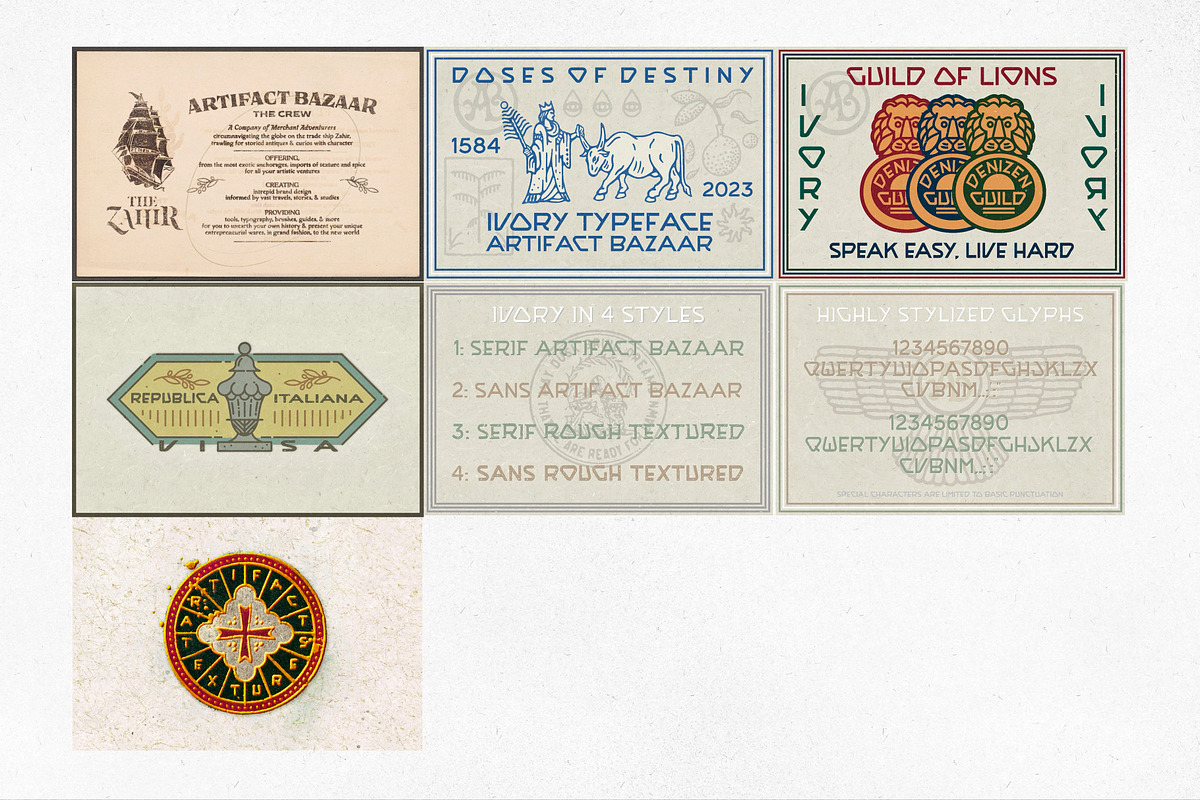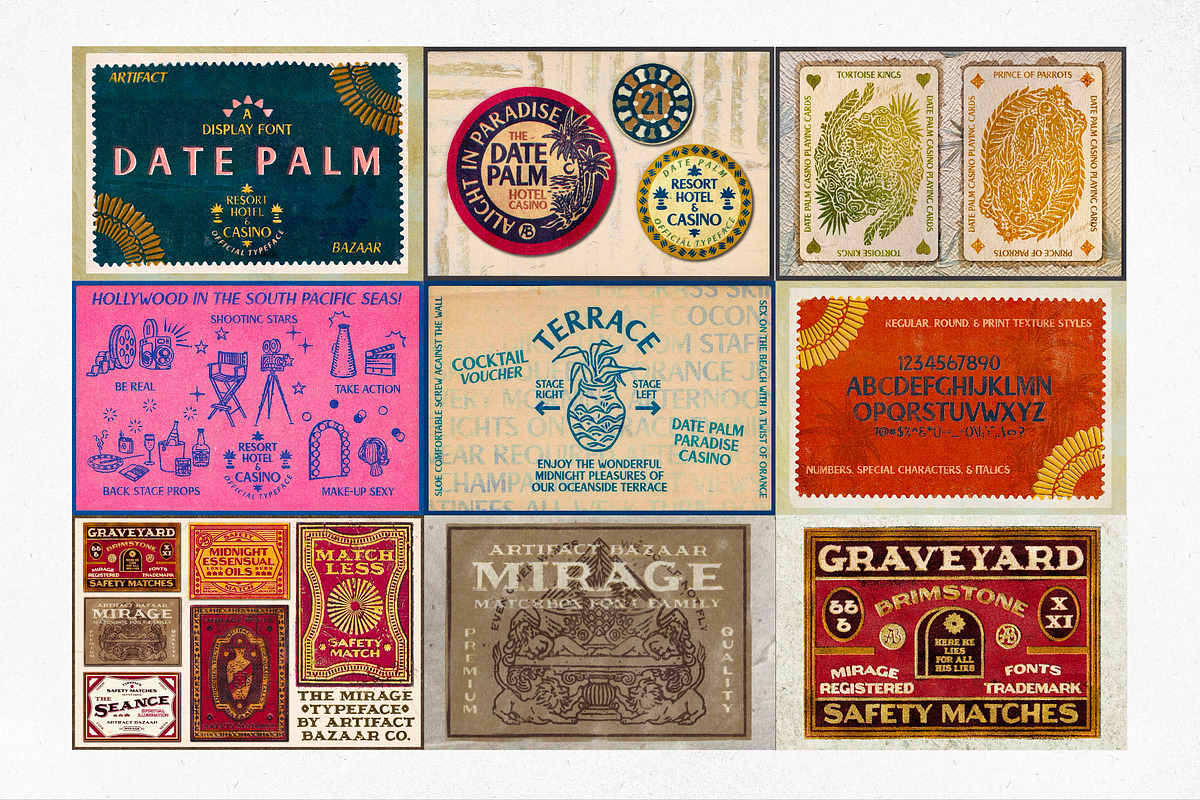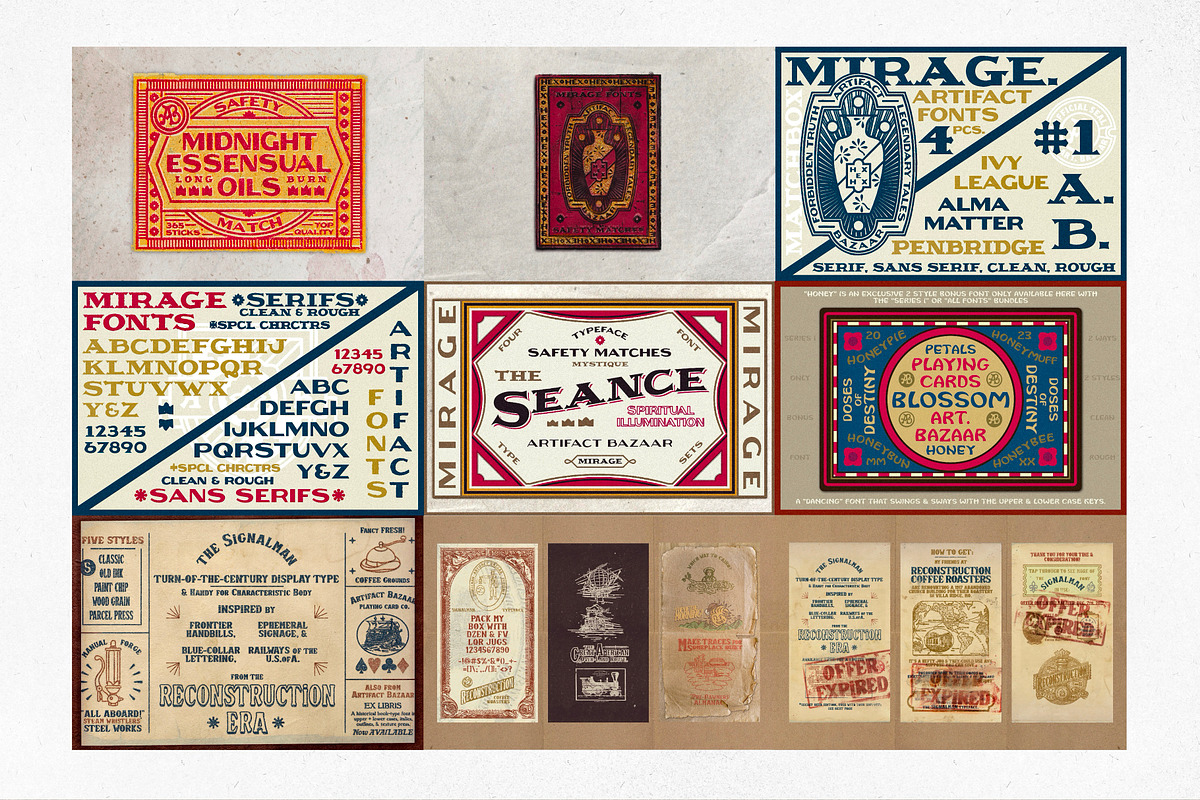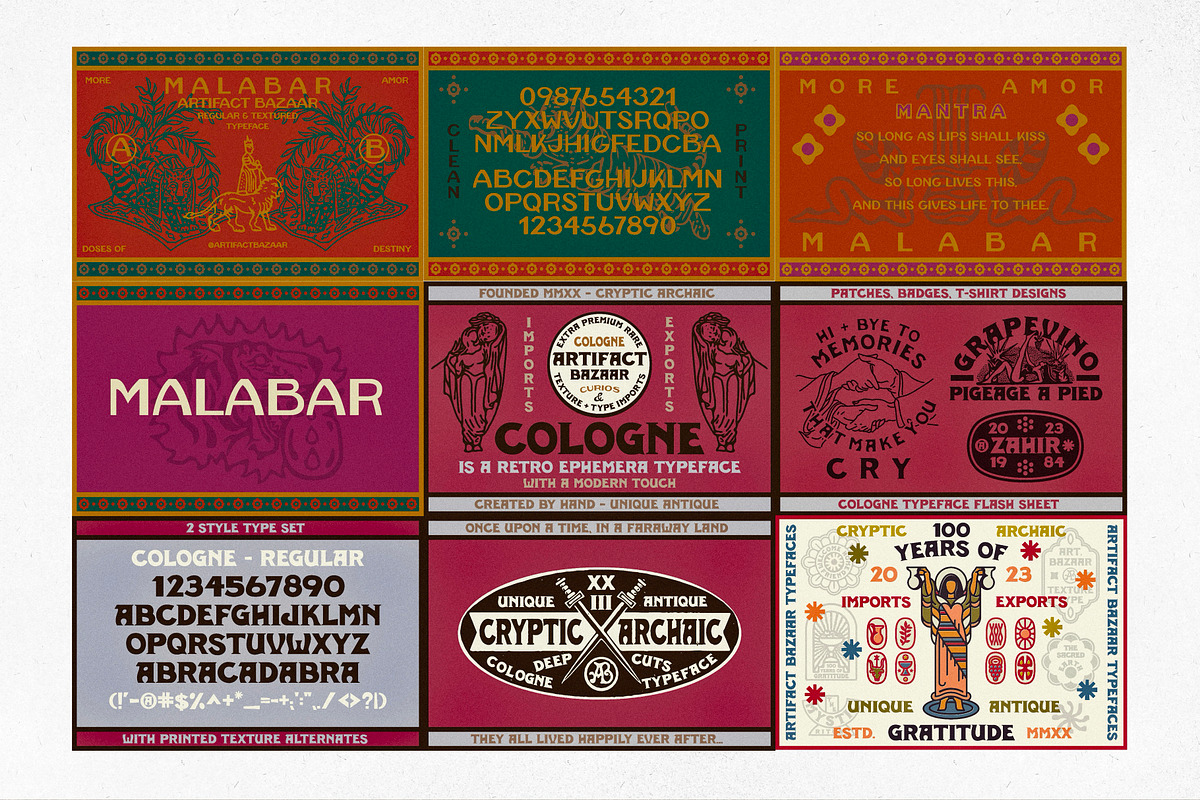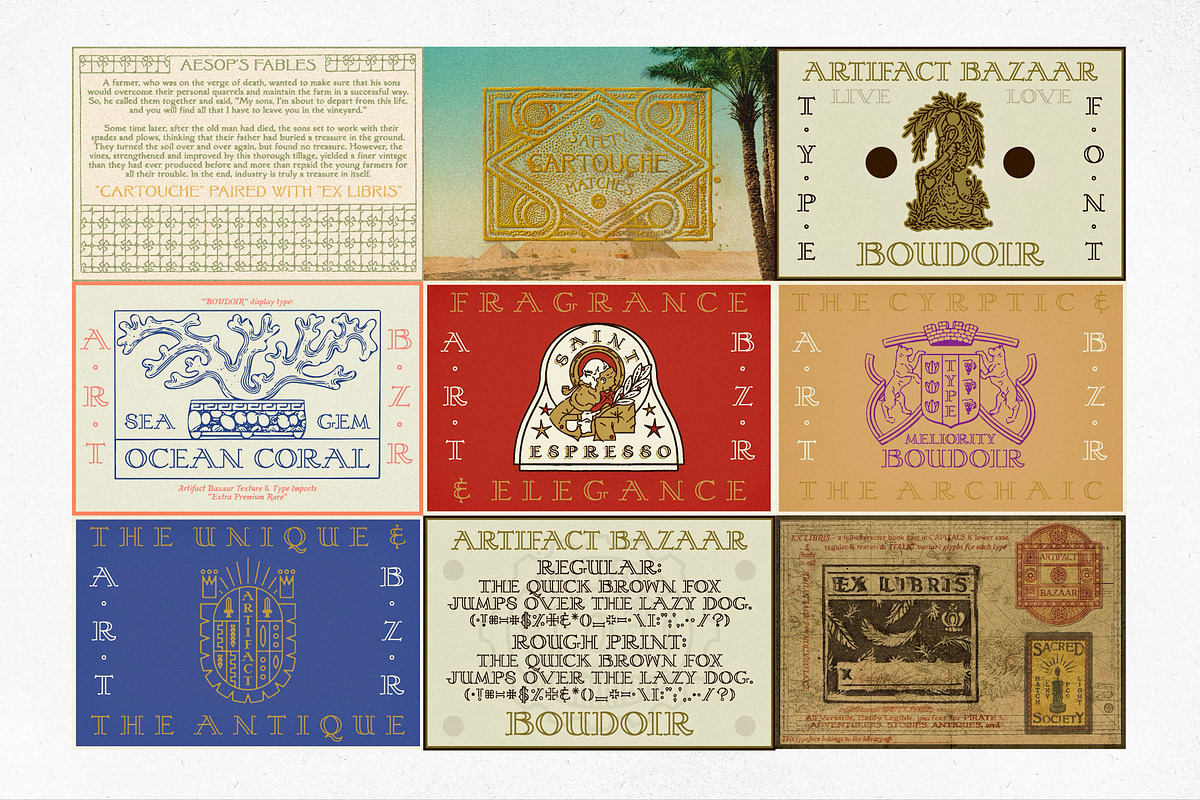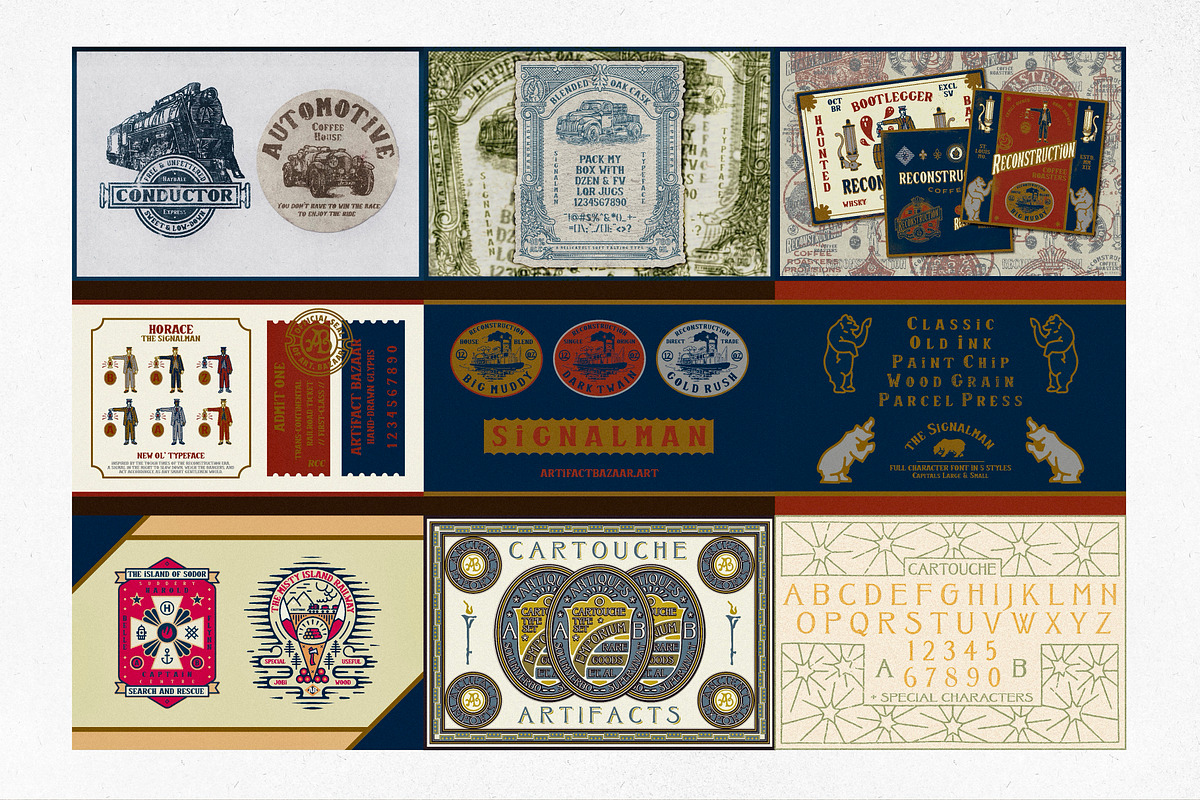
Season 1 Artifact Font Collection
But seriously, there are some real powerhouses in here, some stylistic unicorns, some rainy-day fonts, some badge beauties - all inimitable character actors to drive your work into the realm of the unforgettable.
Boudoir
Cartouche
Cologne
Datepalm
Ex Libris
Honey
Ivory
Malabar
Mirage
Signalman